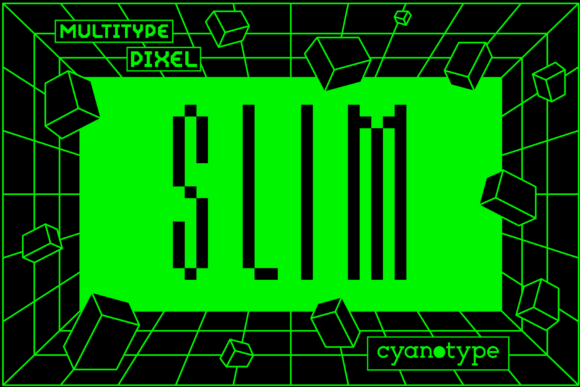
Prepare yourself for a typographic revolution with MultiType Pixel Slim Font, the display font that will reshape your creative horizons. This remarkable font, hailing from the talented foundry, cyanotype, embodies a distinctive pixelated design that oozes modernity and style.
Enter a realm where sharp angles and smooth curves collide, creating a captivating visual aesthetic that is sure to leave a lasting impression. MultiType Pixel Slim Font is a font innovator's dream, offering a diverse range of glyphs and swashes, effortlessly accessible through PUA encoding. Unleash your creativity and push the boundaries of design.
Immerse yourself in the boundless possibilities offered by this digital masterpiece. Create logos that exude a contemporary flair, website designs that captivate visitors, and social media posts that demand attention. MultiType Pixel Slim Font is the ultimate choice for those seeking a font that exudes both sophistication and playfulness.
Don't settle for ordinary fonts that blend into the background. Embrace the captivating charm of MultiType Pixel Slim Font and watch your designs take center stage. Its unique pixelated form will elevate your projects, adding a touch of intrigue and dynamism that sets them apart from the crowd.
Join the ranks of creative visionaries who have discovered the transformative power of MultiType Pixel Slim Font. With its captivating aesthetics and endless applications, this font is not just a design tool; it's an expression of your artistic prowess. Embrace the digital revolution and redefine your creative boundaries with this remarkable font.